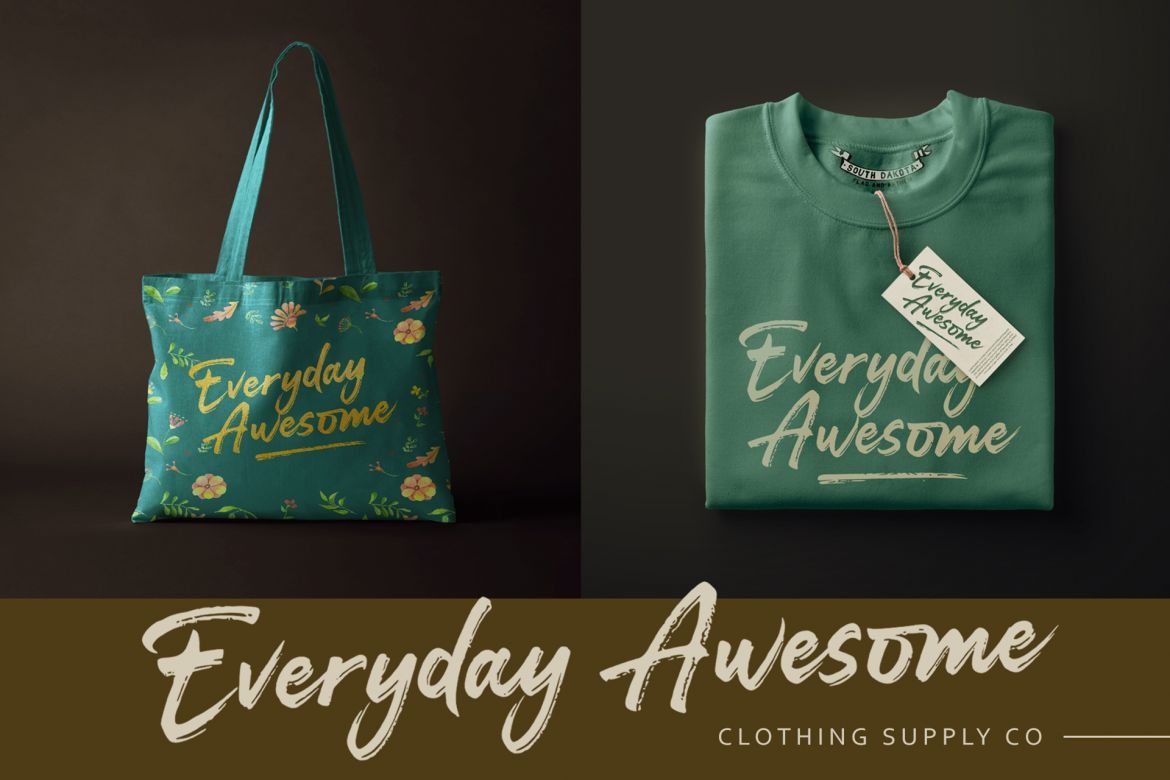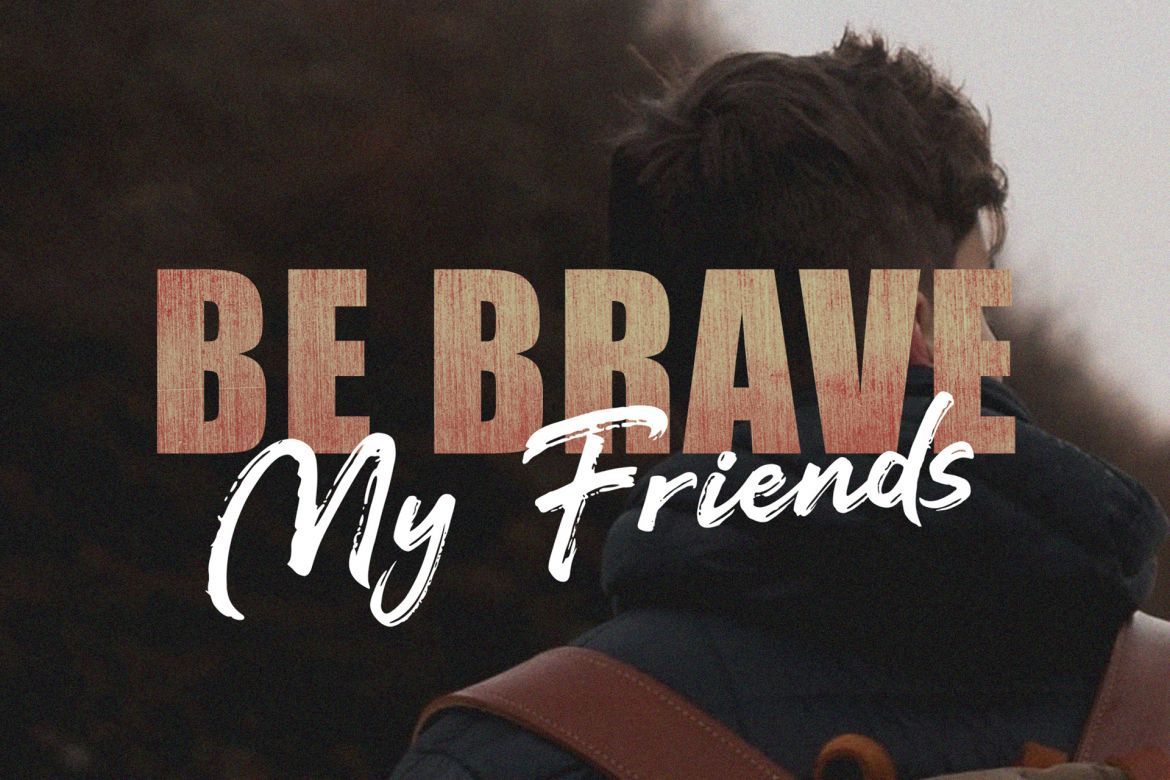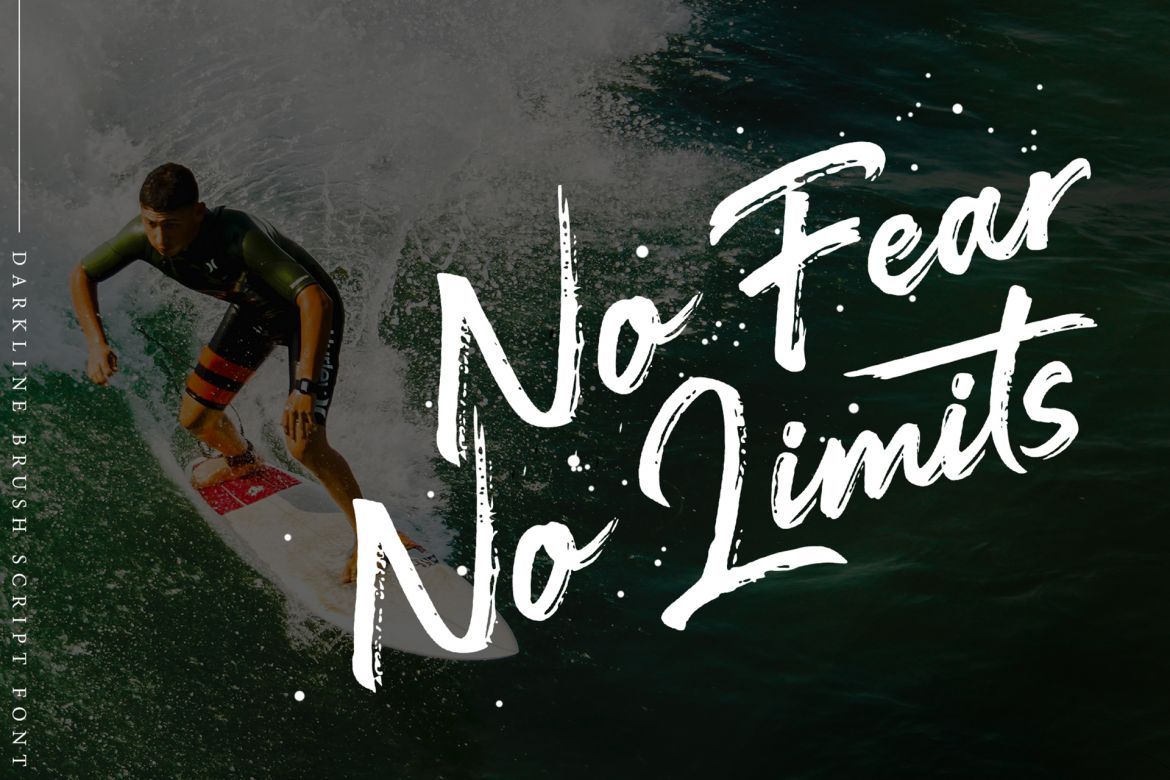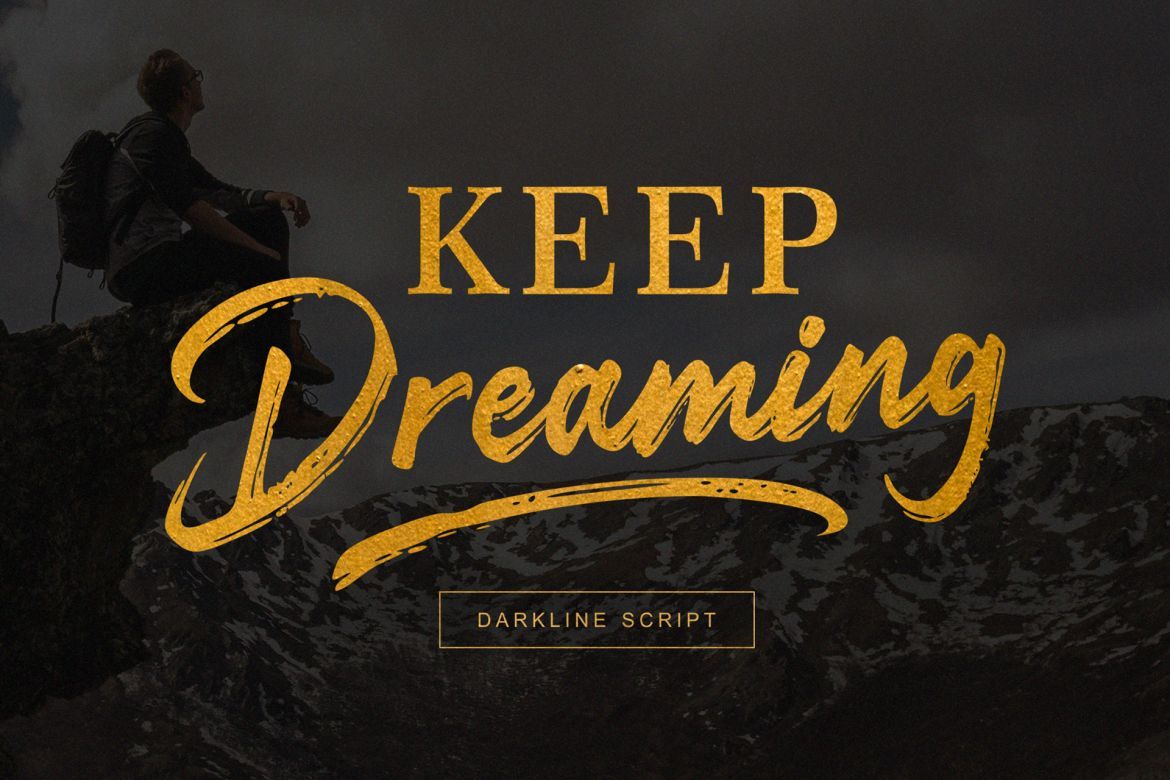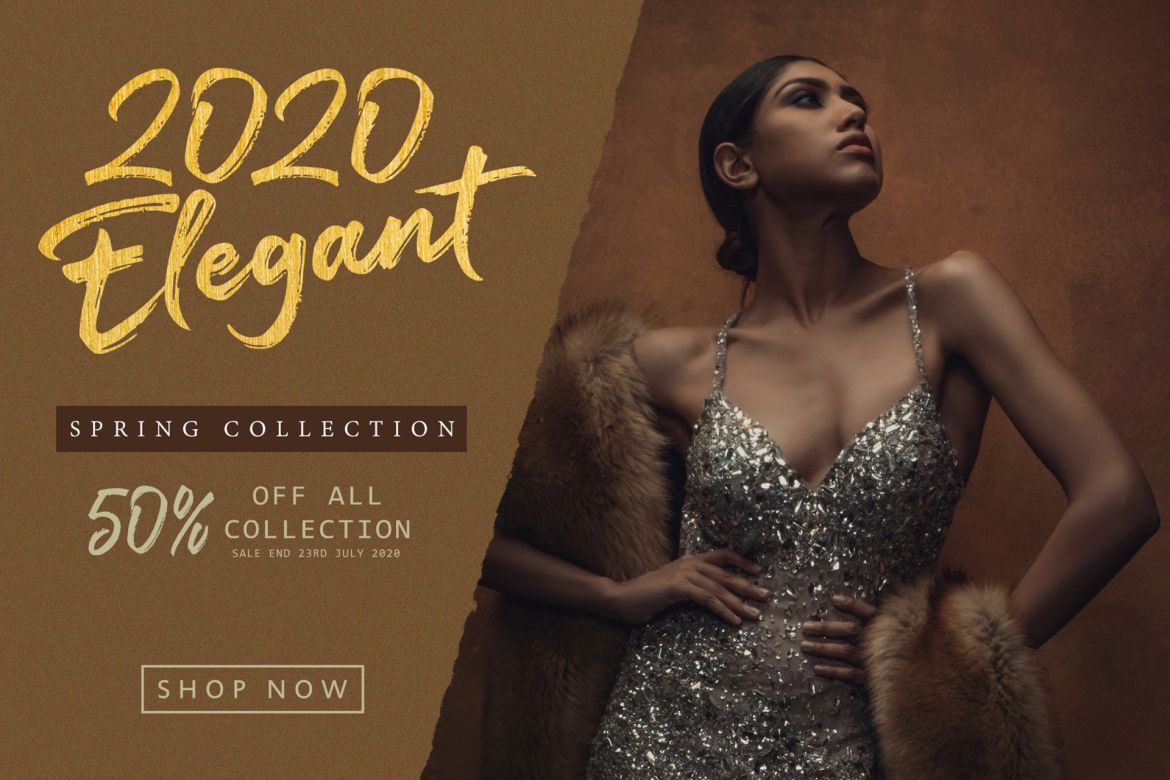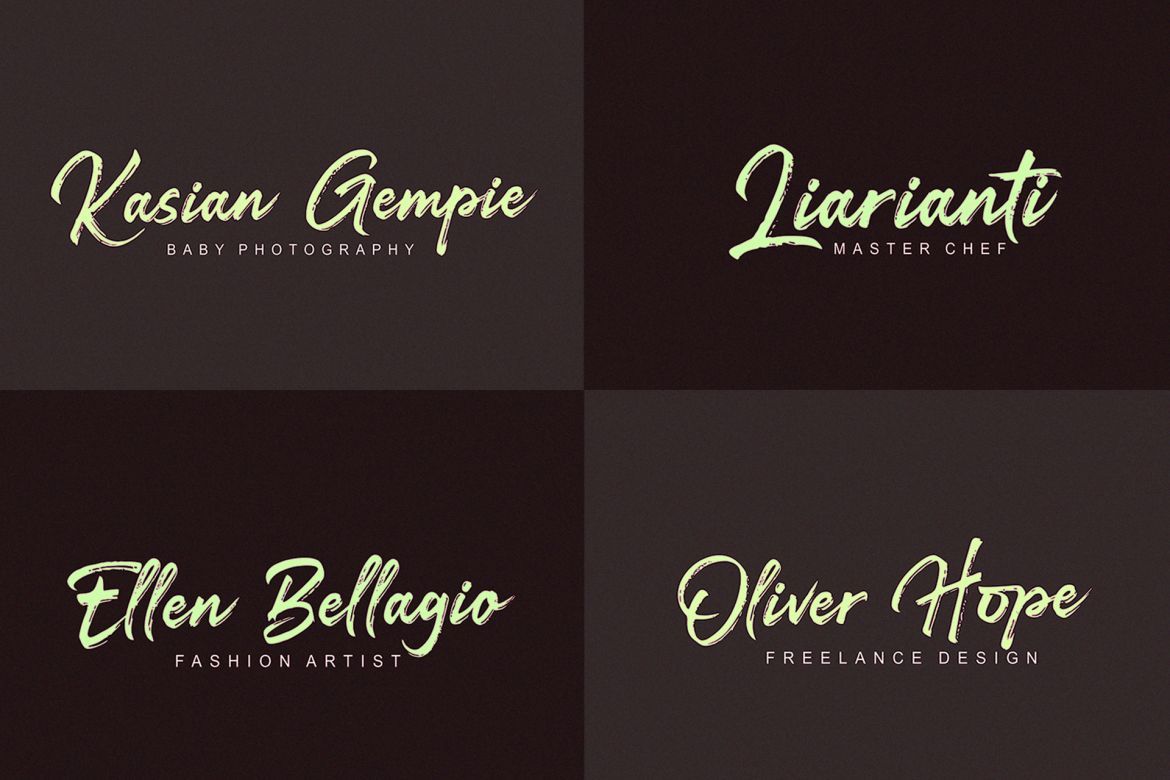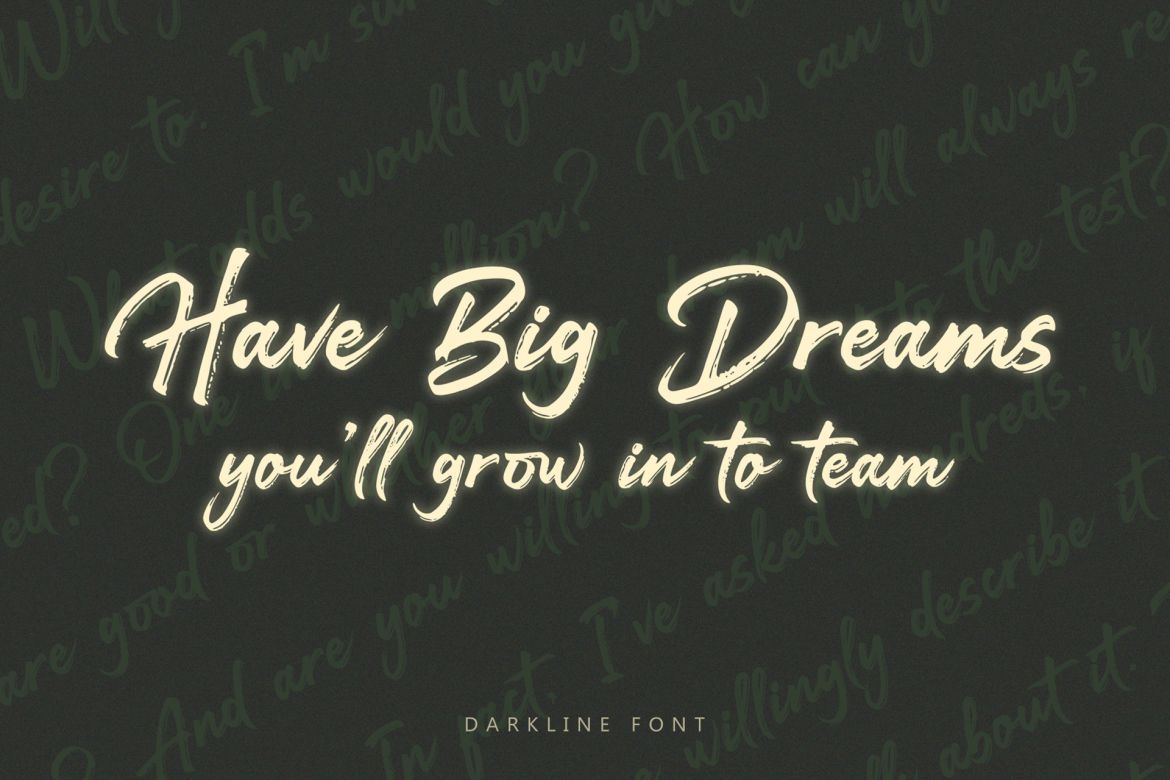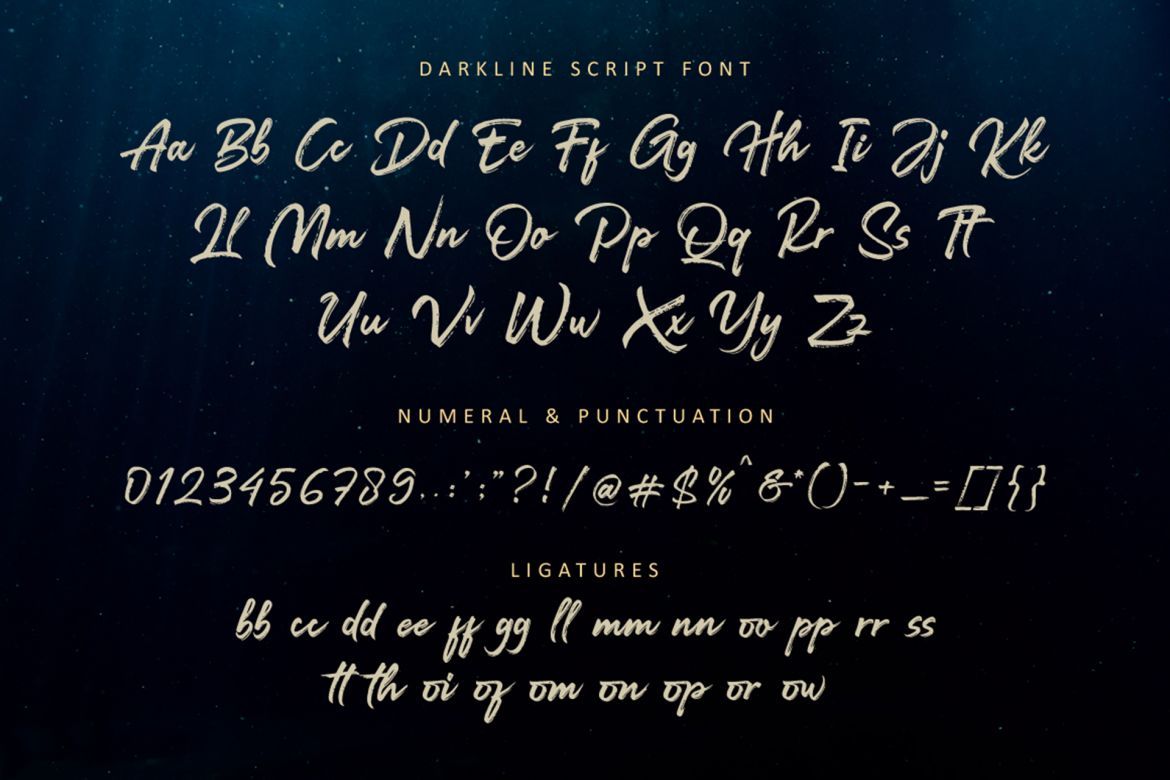
Darkline Brush Font
Introducing: Darkline is a brush script font, dapper handwritten font with a personal charm. With quick dry strokes and a signature style, Darkline is perfect for branding projects, homeware designs, product packaging - or simply as a stylish text overlay to any background image.
Ligatures • Are also available for several lowercase characters (double-letters which flow more naturally). These are only accessible via software with opentype capability or a glyphs panel, e.g. Photoshop/Illustrator.
• natural brush style